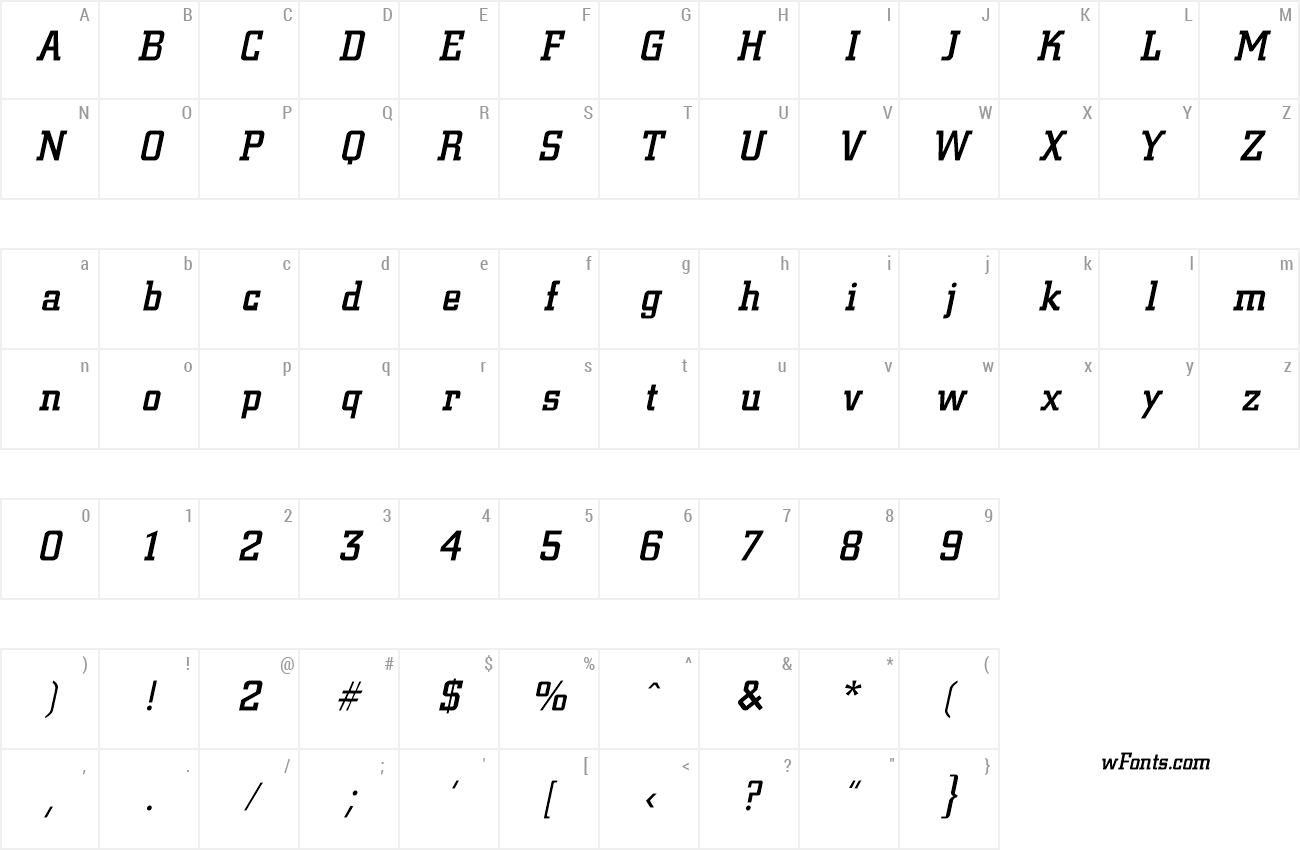
Web use the text generator to convert your text into graphics online with honda font, a customized font similar to the honda logo. Web explore civic fonts at myfonts. Web honda logo font stands alone as one of the few fonts that hasn’t changed significantly since it first debuted.
Honda Civic Font - Web explore civic fonts at myfonts. You can download the font for free, choose font. Web download a free font based on the honda logo, a japanese multinational corporation known for automobiles, motorcycles, and power equipment. Web download and install the civic font for free from ffonts.net. Web find a free font similar to the honda logo font, which has.
Honda Civic Font - Learn about the history and design of the honda logo. You can download the font for free, choose font. Collection of fonts for honda civic. Web explore civic fonts at myfonts. Discover a world of captivating typography for your creative projects.
Honda Civic Font - ️ this font has been downloaded 7,000+ times. Web honda logo font stands alone as one of the few fonts that hasn’t changed significantly since it first debuted. Web font meme offers a free font inspired by the honda logo,. Discover a world of captivating typography for your creative projects. Web download a free font based on the honda logo,.
Honda Civic Font - Web find a free font similar to the honda logo font, which has a steel style and a comfortable seat symbol. Learn about the history and design of the honda logo. ️ this font has been downloaded 7,000+ times. Web use the text generator to convert your text into graphics online with honda font, a customized font similar to the.